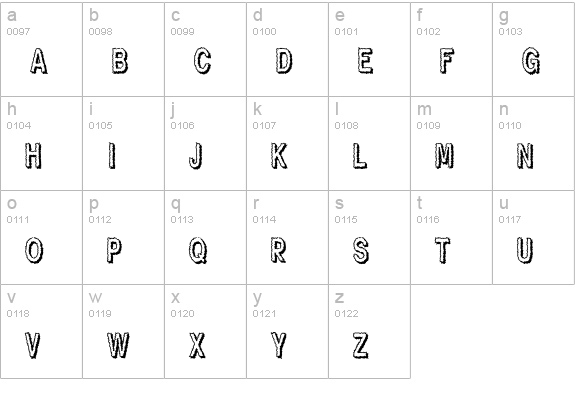
Introducing Fear font, a captivating and edgy typeface that is sure to make a bold statement in any design project. This unique font exudes a sense of mystery and intrigue with its sharp angles and intricate details. Fear font is perfect for adding a touch of drama and intensity to your designs, whether it be for branding, posters, or social media graphics. What sets Fear font apart is not only its striking appearance but also its versatility. This font can be used for a wide range of projects, from horror movie posters to futuristic tech designs. Its bold and commanding presence will surely grab the attention of viewers and leave a lasting impression. The best part about Fear font is that it is completely free to download at FontsMarket.com. Yes, you read that right – you can access this stunning font at no cost and use it in your personal and commercial projects without any restrictions. So why wait? Add a touch of fear and excitement to your designs with this incredible font today!